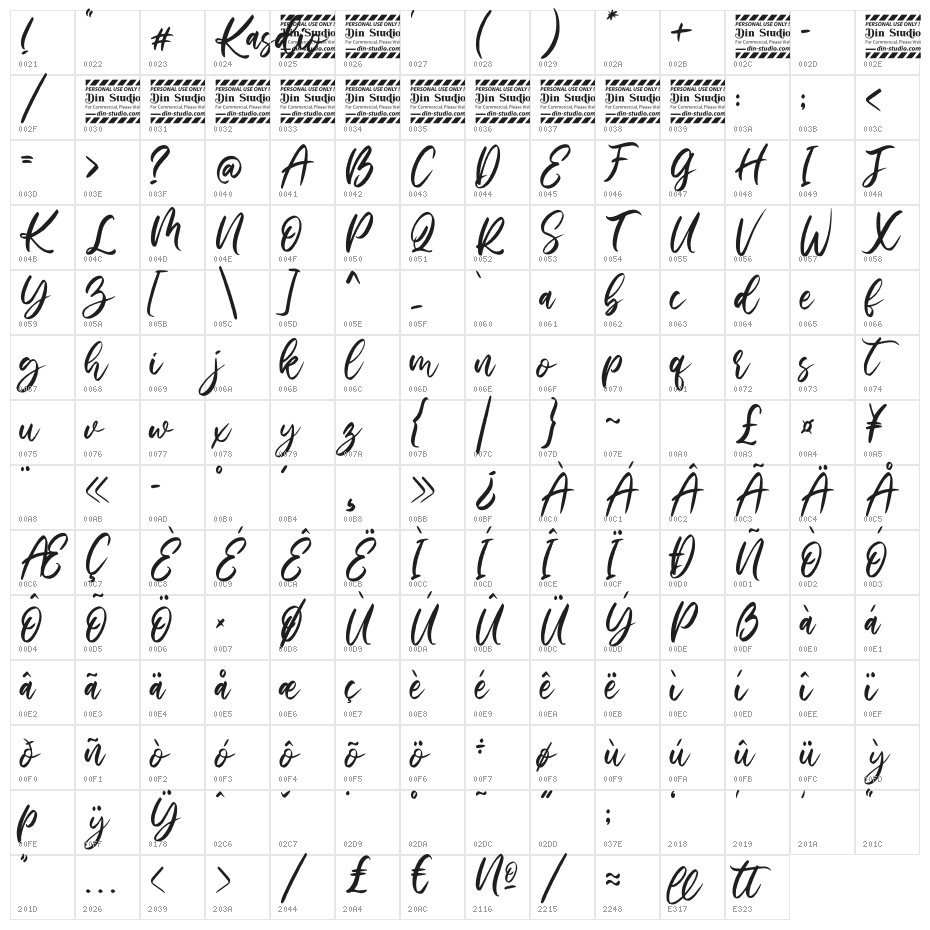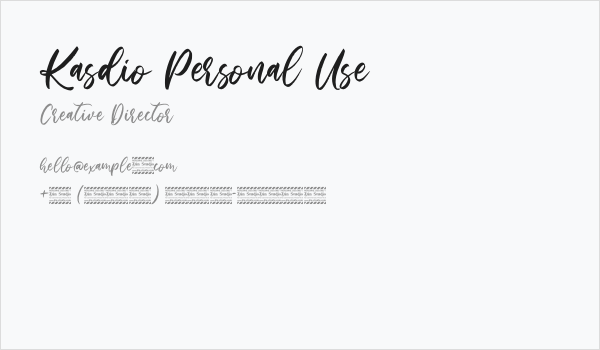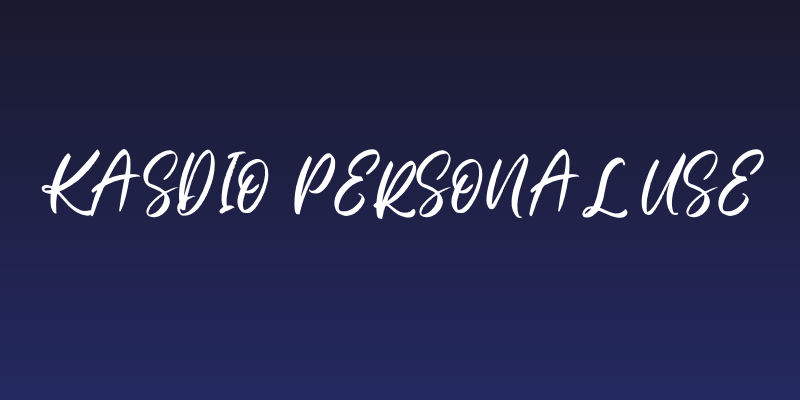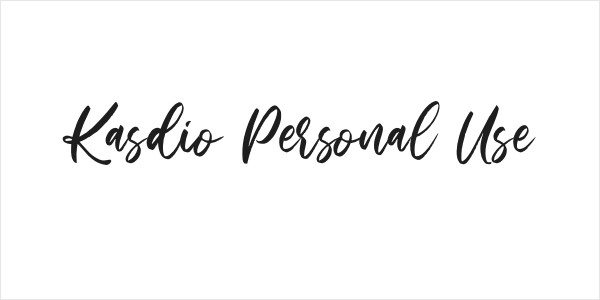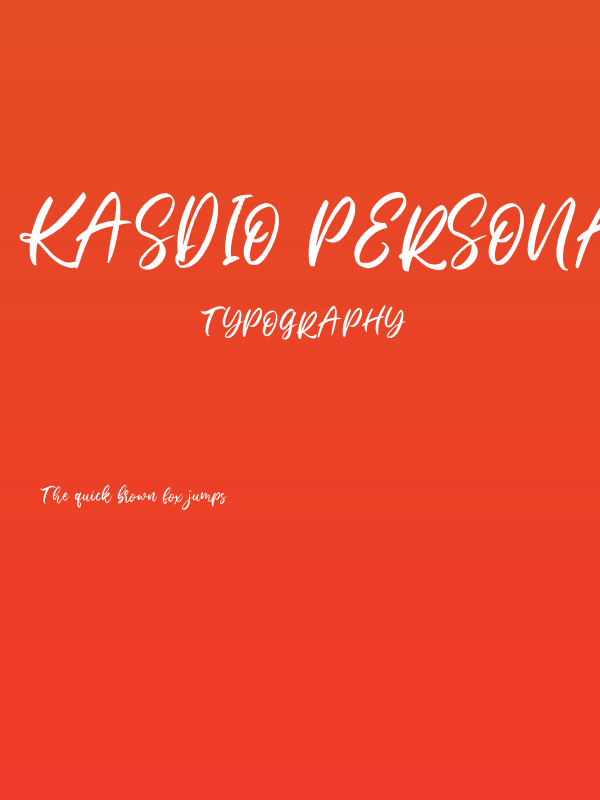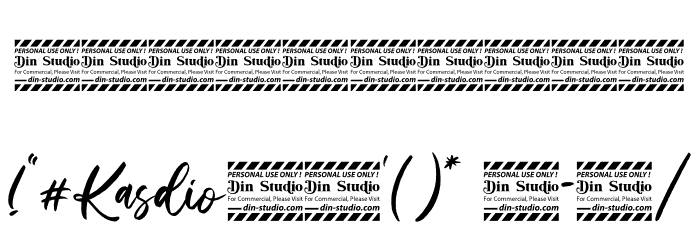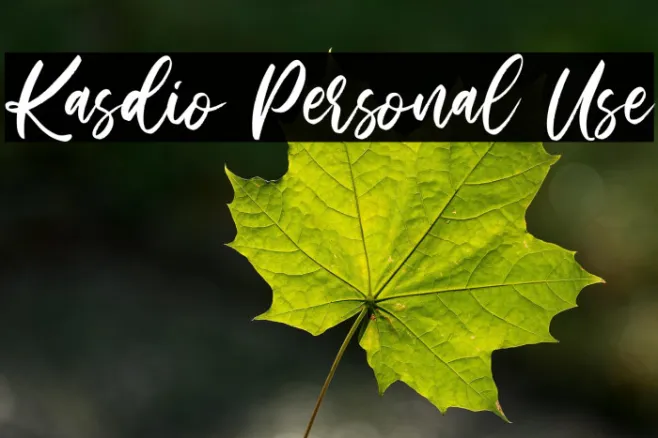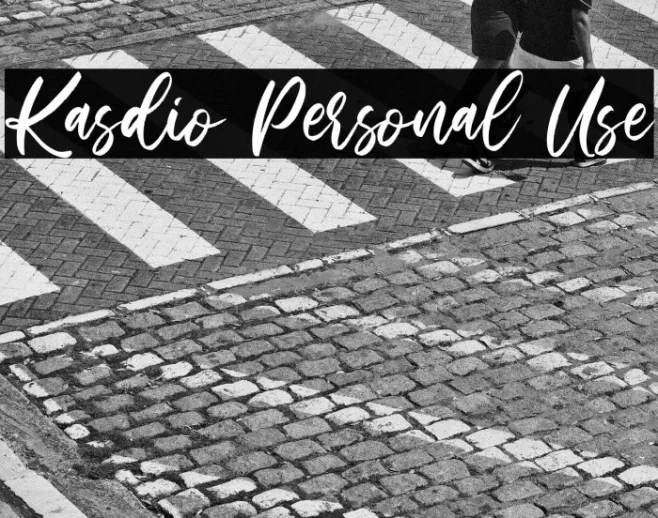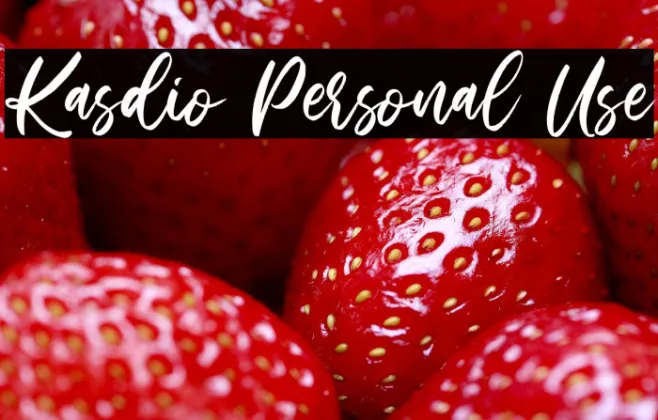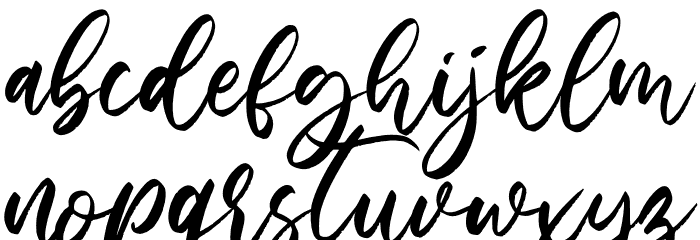
Kasdio Personal Use Font
Kasdio Personal Use Description
This font features a bold, flowing script style that exudes elegance and sophistication. The characters are crafted with a smooth, cursive design, showcasing a dynamic and artistic flair. Each letter seamlessly connects to the next, creating a harmonious and fluid appearance. The uppercase letters are slightly more elaborate, with intricate loops and swirls, while the lowercase letters maintain a consistent and graceful flow. The font's overall aesthetic is both modern and classic, making it versatile for various design applications. The special characters and numbers are designed to complement the alphabet, maintaining the same stylish and cohesive look.
| Overall Style | Elegant, Modern |
| Proposed Projects | Ideal for wedding invitations, branding, logos, and elegant stationery. |